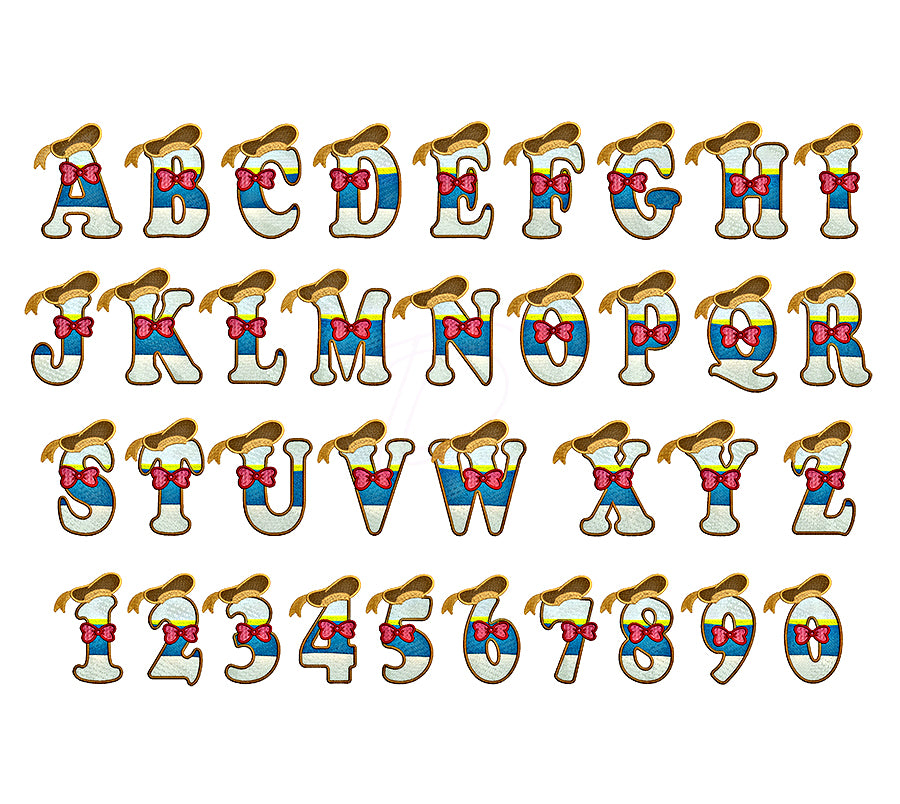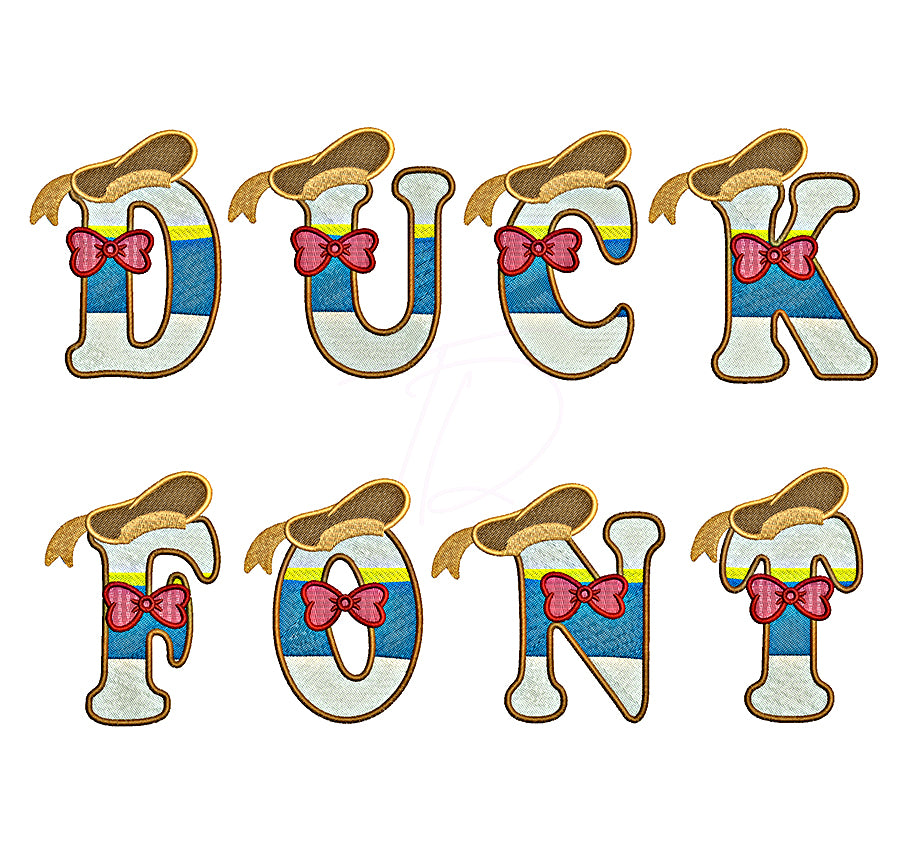
Duck Embroidery Font
Quack up your embroidery projects with the Duck Embroidery Font — a charming, whimsical machine embroidery font featuring adorable duck-themed lettering that's perfect for kids and nature lovers alike! 🦆⭐
Whether you're personalizing baby items, children's apparel, pond-themed gifts, or farm-style home décor, this font brings a delightful, playful touch to every stitch.
- Includes full alphabet (A–Z)
- Clean stitching optimized for small and medium sizes